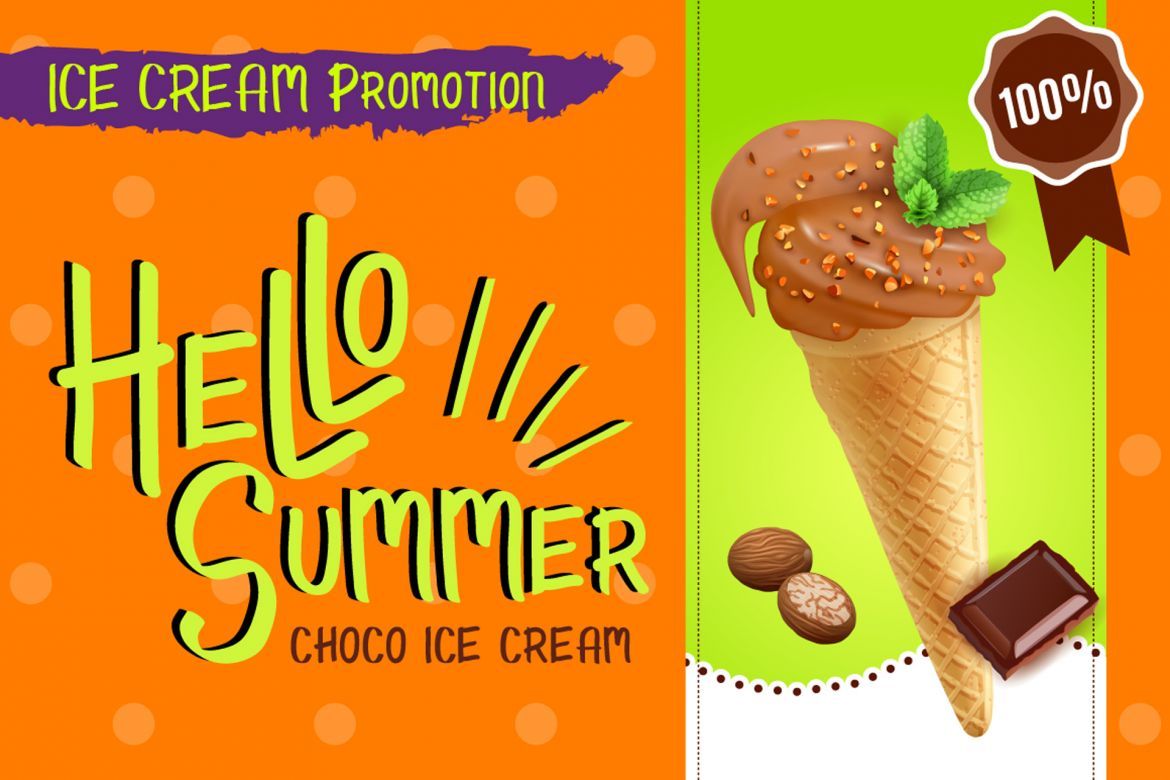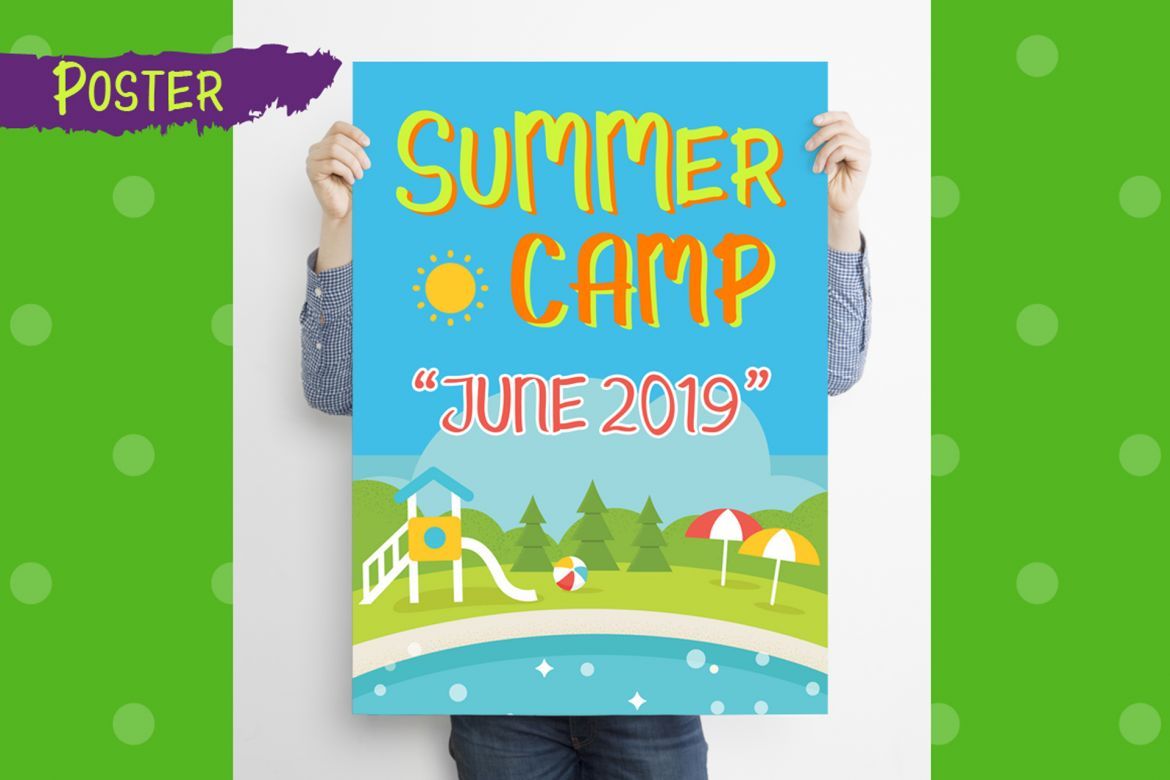
Candy Font
Inspired by kid’s laughter, Candy is a joyful and charming display font. It will add a whimsical twist to any design project.
• - it's like a handwritten playful.
• - with 2 styles uppercase alternates, you can mix that with any design project.